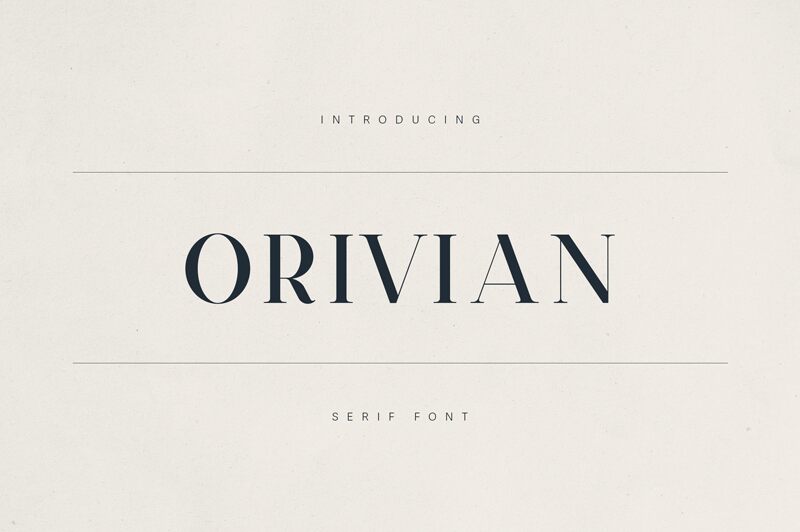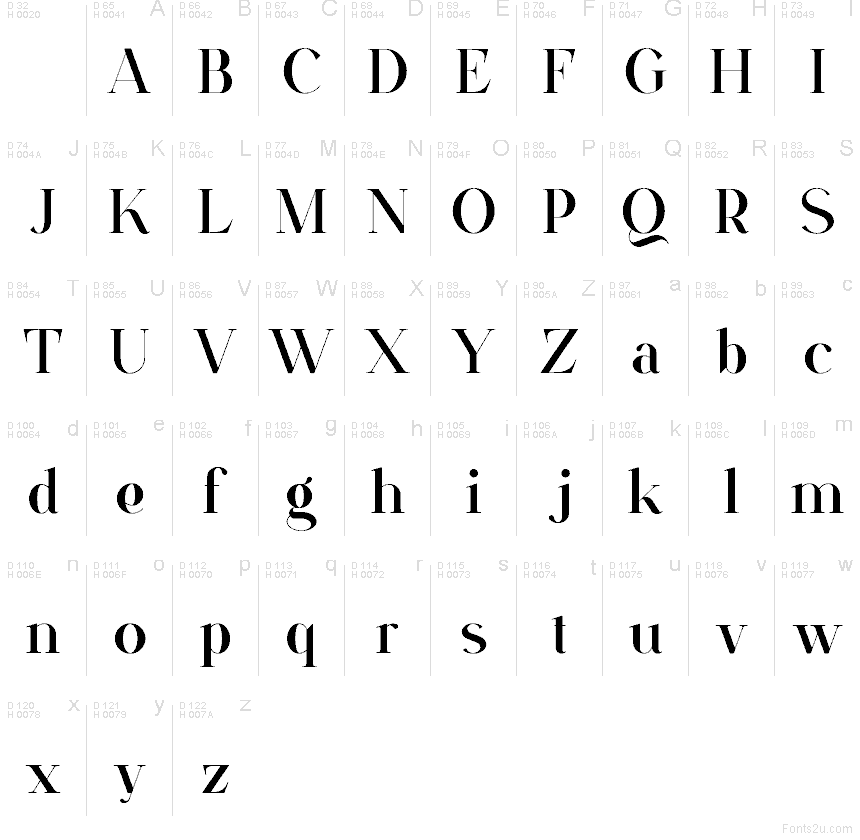
Orivian Demo Regular
Orivian font by VPcreativeshop is a free serif typeface that feels like it was cut from glossy magazine pages. Tall, elegant letters with dramatic thick-and-thin strokes and sculpted curves give it a couture, editorial mood. The spacing feels tight and intentional, so every word looks like a crafted logotype straight out of a luxury brand book.
Using Orivian, your headlines instantly gain a sense of polish and drama that suits fashion branding, beauty packaging, wedding invitations, posters, social media covers, and bold logos. This free font shines when used large, where its inky curves and refined rhythm can breathe. Pair it with a clean geometric sans for body copy to keep layouts crisp and contemporary.